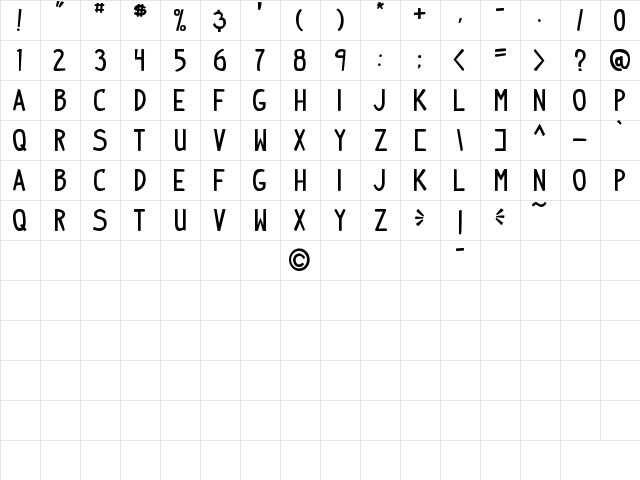
indy pimp Bold
Bold ·  Andeh Pinkard ·
DesignerAndeh Pinkard
Design Context for indy pimp Typeface
indy pimp offers clean, dependable letterforms without strong stylistic allegiance, making it a practical choice for designers who need flexibility. Its bold stroke weight gives it real presence on the page.